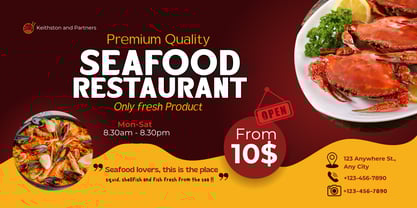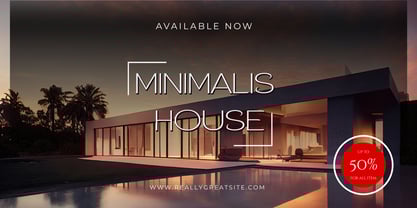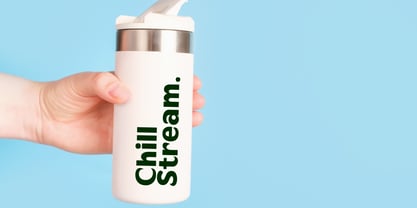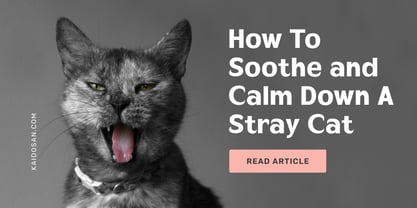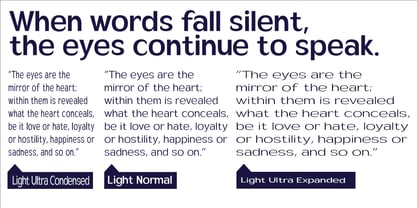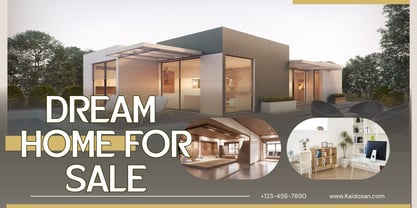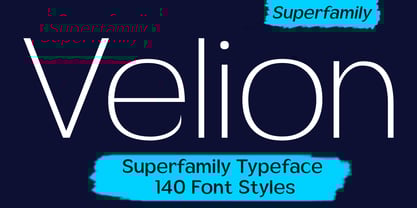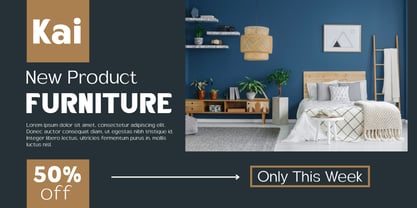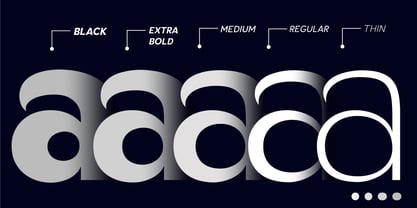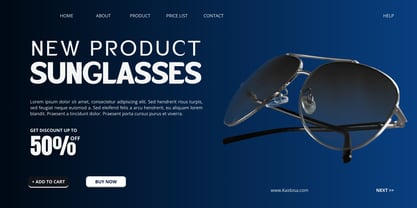
Velion
by Kaidosan
The Velion Font Family was designed by Muhammad Ansari and published by Kaidosan. Velion contains 141 styles and family package options.
Velion — A Refined Superfamily Typeface for Modern Visual Excellence. Velion is a meticulously crafted superfamily typeface designed to elevate every visual experience with unmatched clarity, elegance, and versatility. Built with precision and artistic sensitivity, Velion offers a harmonious balance between aesthetics and function—perfect for brands, editorial layouts, digital interfaces, packaging, and high-end visual identities. Engineered as a comprehensive type system, Velion features a wide range of styles that allow designers to maintain consistent typography across diverse mediums. Each weight is shaped with refined curves, balanced proportions, and smooth readability, making Velion adaptable for both expressive headlines and clean, professional body text. With its modern construction, timeless character, and exceptional flexibility, Velion stands as a powerful choice for creatives who demand a typeface capable of shaping a distinctive visual voice. Key Features Complete superfamily type system Elegant construction with premium design details High readability for print and digital environments Perfect for branding, editorial, UI/UX, advertising, and packaging Versatile for expressive display typography and refined text settings